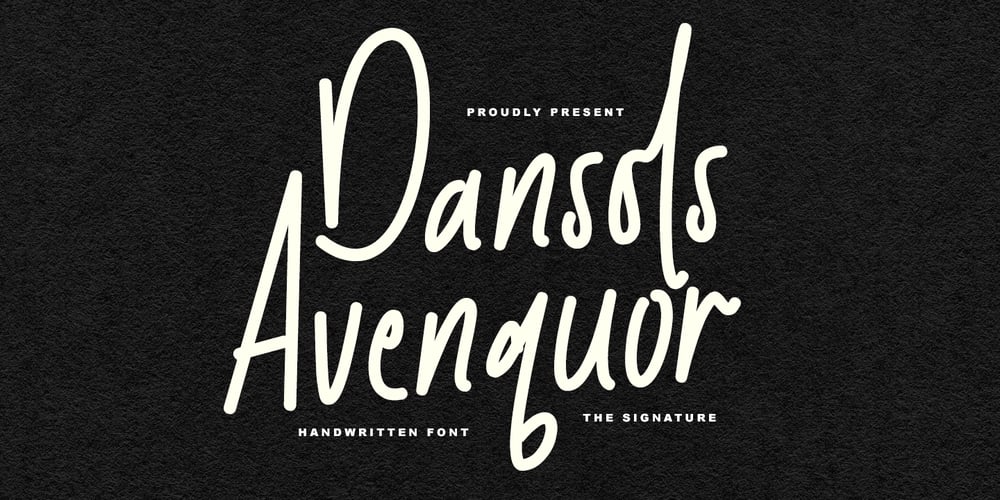
MC Dansols Avenquor Font Family was designed by Gilang Maulana and published by Maulana Creative. MC Dansols Avenquor contains 1 styles and family package options. Dansols Avenquor is a handwritten font. With bold contrast stroke, fun character with a bit of ligatures and alternates. To give you an extra creative work. Dansols Avenquor font support multilingual more than 100+ language. This font is good for logo design, Social media, Movie Titles, Books Titles, a short text even a long text letter and good for your secondary text font with sans or serif. Make a stunning work with Dansols Avenquor font.